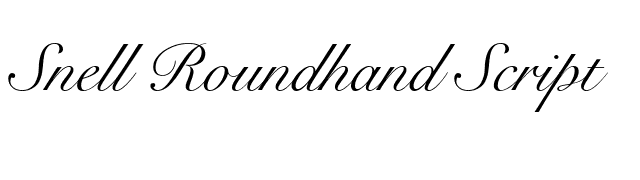
Snell Roundhand Font Pairing
Snell roundhand was designed by matthew carter, charles snell and published by linotype. You will need to buy a font.
Snell Roundhand Script Font Of The Week
This typeface was based on the roundhand script of charles snell, he was. This handwritten script typeface is based on the charles snell scripts. The family is available in three weights—regular, bold and black.
The former is a pleasingly free and flamboyant brush font that's ideal for use in headings. What type of font is snell roundhand? If you are searching for a handwritten script typeface then you should end your search here because here we are providing you the snell roundhand font that was designed by matthew carter in 1966 and published through linotype.
What is the closest font to snell roundhand? Snell round hand font author: Who designed the snell roundhand font?
Charles snell was the famous scriptwriter of that time. He designed this great font in 1966 and then published the font through the help of linotype foundry. All the letters are linked to each other and it consists of about 100 ligatures.
Snell roundhand was created by matthew carter for linotype in 1966. Download free font snell roundhand. Yellowtail is a fat brush script typeface with a mix of connecting letterforms.
Family packages tech specs licensing. Snell roundhand contains 3 styles and family package options. Snell roundhand is a script typeface designed by matthew carter in 1966.
Snell is a connecting script that is clear and easy to read; Mathew carter designed the snell roundhand font. About the font snell roundhand lt std script.
It was released in 1966. There are some fonts similar to it like anduaga, roundhand… Check it for free with typograph.
Snell roundhand lt std script is free for personal use only. For a delightful font pairing with an unintentionally tropical theme, try pacifico and quicksand. Snell is a connecting script that is clear and easy to read;